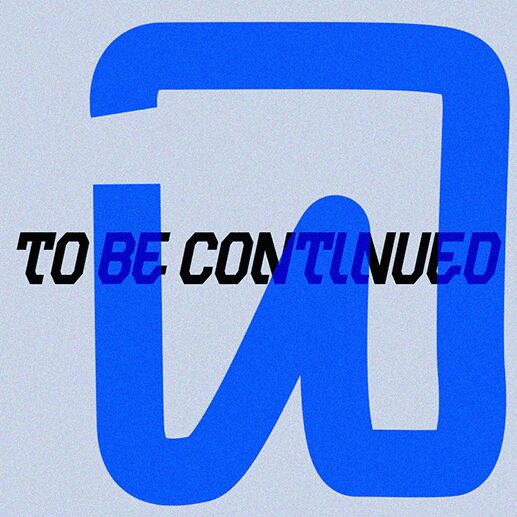
To Be Continued font is a sleek, angular typeface by Vladimir Nikolic. This free techno display font inspires with its modern retro-inspired style and assertive geometric shapes. Devised to leave a futuristic impression, the font encompasses a complete letter set.
Use it for your brand name, packaging, headlines, business cards, posters, stickers, greeting cards, album covers or graphic novels graphics. Other uses include game design and all means of advertising possible!